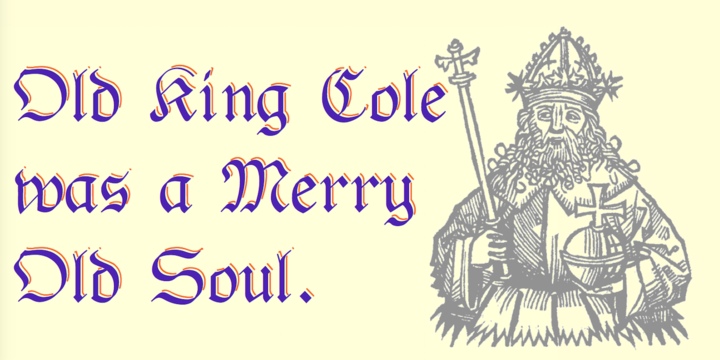
PhederFrack Font
PhederFrack Font is perfect for Gothic architecture presentations, medieval manuscript reproductions, traditional German brewery branding, historical society publications, classical music program designs, ecclesiastical document layouts, heritage festival materials, and traditional craftsmanship communications where Gothic tradition and Germanic heritage are celebrated.
What makes PhederFrack Font so exciting is its authentic ability to capture the ornate majesty and spiritual devotion of Gothic lettering traditions through intricate blackletter forms that embody the craftsmanship and reverence of medieval scribes while maintaining surprising readability for contemporary applications. The elaborate character design reflects the artistic dedication and cultural depth that defines authentic Germanic calligraphic traditions.
The PhederFrack Font family includes regular, bold, ornamental, and decorative variants, with Gothic-inspired flourishes and medieval ornaments that provide comprehensive tools for creating traditional Germanic branding and historical design systems.
This distinguished typeface represents the preservation of Gothic lettering heritage, combining medieval tradition with contemporary cultural communication requirements. The PhederFrack Font Free Download gives heritage organizations access to typography that communicates traditional craftsmanship and Germanic cultural authenticity.
The font's elaborate character construction and Gothic proportions create immediate associations with medieval manuscripts and traditional Germanic culture. Each letterform has been crafted to honor the artistic legacy and spiritual significance that defines authentic blackletter calligraphy and Gothic design traditions.
PhederFrack Font excels in creating meaningful cultural communications that preserve traditional artistry and celebrate Germanic heritage. The typeface's ornate character makes it ideal for historical societies, traditional breweries, and cultural institutions emphasizing authentic Germanic traditions and medieval craftsmanship.
From Oktoberfest celebrations to Gothic cathedral exhibitions, this font brings traditional credibility that appeals to audiences appreciating Germanic cultural heritage and medieval artistic traditions. The versatile design maintains its Gothic character across both traditional heritage materials and modern digital cultural preservation platforms.